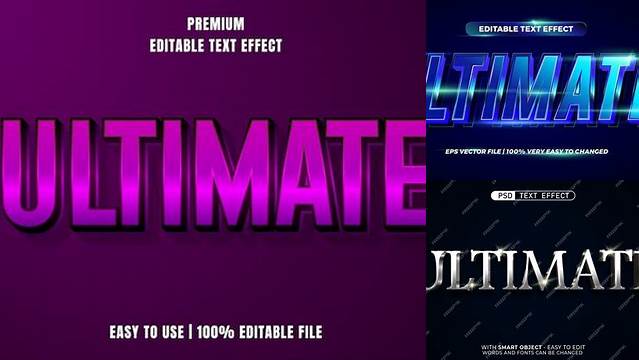
Font Editable Freepik: A Comprehensive Guide
Welcome, design enthusiasts! Are you ready to dive into the exciting world of font editable Freepik resources? This comprehensive guide is designed to be your ultimate companion, providing insights, tips, and tricks to help you master the art of utilizing and customizing font editable files from Freepik. We'll explore everything from the basics of identifying these valuable resources to advanced techniques for incorporating them seamlessly into your projects. So, buckle up, and let's embark on this creative journey together!
H2: Understanding Font Editable Files on Freepik
Alright, guys, let's start with the fundamentals. What exactly are font editable files on Freepik? Essentially, they are design templates or resources that include text elements that you can modify using design software like Adobe Illustrator or similar programs. This means you're not just getting a static image; you're getting a file where you can change the text, font, size, color, and more! This opens up a world of possibilities for personalization and adaptation. When you download a file from Freepik, pay close attention to the file format. Look for files like .ai (Adobe Illustrator), .psd (Adobe Photoshop), or sometimes even .eps (Encapsulated PostScript). These are your key indicators of an editable file. These formats allow you to access the layers, making text elements independently changeable. It is important to know the type of license associated with the file. Freepik usually offers different licenses, including a free license and a premium license. Each license has its own rules regarding usage, such as attribution requirements, commercial use limitations, or the need for a premium subscription. Make sure you understand the licensing terms to avoid any legal issues. Always check the fine print! This is a crucial first step, as understanding the licensing agreement will dictate how you can use the files in your projects. This step often involves reading through the license details provided by Freepik. These documents outline the permitted and restricted uses of the design assets. This includes how you can use the files in your commercial projects, personal projects, or whether you need to provide attribution to the original creator.
H3: Identifying Font Editable Files on Freepik
Now, let's talk about how to spot these gems on Freepik. The platform offers a massive library, so knowing how to filter and find the exact files you need is essential. First, use specific keywords. When searching, start with terms like "editable flyer template," "customizable poster," or "vector text effect." Using the right keywords is like having a secret code to unlock the treasures of design. Combining keywords can also help refine your search. For example, if you're looking for a business card template, use terms like "editable business card template" or "professional business card design editable." Use Freepik's filters. Freepik provides filters that allow you to narrow down your search based on file type, license, and even color. The file type filter is particularly useful. This will help you to find files with editable text elements. Look for files in .ai or .psd format. These formats are specifically designed for vector-based designs and provide layers that allow easy text editing. Consider the design software you use. When you're selecting an editable file, make sure it is compatible with your preferred design software. For example, if you use Adobe Illustrator, you'll want to select files in .ai or .eps format. Compatibility with your software can save you time and headaches down the road.
H2: Customizing Text in Font Editable Templates
Alright, let's get down to the fun part: customizing the text! This is where your creativity truly shines when using font editable files. Start by selecting the text layers. These are typically organized in the layers panel of your design software. Each text element will be in its own layer. Once you've selected the text layer, you can double-click on the text or use the text tool to edit it. Replace the placeholder text with your own content. Whether it's a name, slogan, or event details, this is where you bring your vision to life. Now comes the exciting part: font selection. Experiment with different fonts to find the perfect match for your message and design style. Consider the typeface's style. Every font has its own personality. Some fonts are bold and modern, while others are elegant and traditional. Choose a font that complements the overall design and reflects the tone of your message. Don't be afraid to adjust the font size to ensure readability and visual appeal. Make sure it fits the layout. If you're aiming for a classic look, think about fonts such as Times New Roman or Garamond. For a modern vibe, opt for sans-serif fonts. You can also change the font's color. If you're using a dark background, use white. If using a light background, use a dark color. These small changes can have a massive impact on the design. These techniques can help you change the text.
H3: Font Selection and Pairing for Editable Designs
Choosing and pairing fonts for your font editable designs is a key skill. The right font combination can elevate your project from good to amazing, while the wrong ones can make your design feel cluttered and unprofessional. Start by understanding font categories. There are several categories to choose from. Each one has its own character. Serif fonts have small strokes at the end of letters, offering a classic and elegant look. Sans-serif fonts lack these strokes and are generally more modern. Script fonts mimic handwriting, and display fonts are bold and attention-grabbing. Choose a primary font and a secondary font. The primary font is typically used for headlines and important text, while the secondary font is used for body text and supporting information. Try to choose fonts that complement each other. Consider the visual balance between your fonts. Experiment with contrasting fonts to make it visually interesting. Avoid using too many different fonts. It can overwhelm the viewer. A good rule of thumb is to stick to two or three fonts maximum. Ensure readability. No matter how beautiful a font is, it's useless if it can't be read. Pay attention to the kerning, leading, and tracking. Kerning refers to the space between individual letters, leading is the space between lines of text, and tracking is the overall spacing of a block of text.
H2: Modifying Colors and Graphics in Editable Templates
Beyond text, customizing colors and graphics is another way to make font editable Freepik templates truly your own. First, learn to navigate the layers panel. This is where all the design elements are organized. Look for layers related to background colors, graphic elements, and text. Once you have located the color layer, select it and change the color. Experiment with colors that match your brand identity or project theme. Using the eyedropper tool can help you match a color. When modifying graphics, look for vector graphics. This is because they are scalable and can be modified without losing quality. Experiment with the scale and position of graphic elements. To change the color of the graphic, select the object and change the color in the color palette. This may involve selecting the object and using the color picker tool. Play with the color combination in your design. To make your design interesting, you can try using a color palette. The color palette can help you choose colors that complement each other. This can save you time and effort.
H3: Replacing Images and Illustrations in Editable Designs
Sometimes you need to swap out the existing images and illustrations for your own. This is a common requirement when working with font editable templates. First, locate the image placeholders. These placeholders are usually marked with a layer and named clearly. This layer is usually a rectangle or a frame that contains the image. Ensure that the image you are using is of high quality. Otherwise, the image will appear pixelated and unclear. Replace the image by selecting the placeholder and importing your image into the design. When placing the image, be sure that the size is correct. This may require some adjustment and resizing. Use the transform tool to resize the image. You can also use the cropping tool to ensure that the image fits the design. Make sure the image complements the overall design. Adjust the image to match the style and theme of your project. Consider the composition and placement of the image. Make sure that it does not obscure any important text. By following these steps, you can replace images.
H3: Frequently Asked Questions about Freepik Fonts and Editable Files
Let's tackle some of the most frequently asked questions about Freepik fonts and editable files to give you a crystal-clear understanding. The most common question is: "Are Freepik files free to use?" The answer is complex. While many resources are free to download, there are limitations. The license terms dictate usage, and attribution is usually required for free files. Many people have questions about license compliance. It's important to understand the license terms before using any file. Always read the license agreement. You must understand the permitted and restricted uses. Another common question is: "How do I install fonts from Freepik?" The installation process may vary depending on your operating system. Fonts typically come with the download. You must install the fonts. Be sure to install the fonts correctly. Make sure you restart the design software after installing the fonts. If you're a beginner, consider: "What are the best design programs for editing these files?" Adobe Illustrator and Photoshop are the industry standards. If you're on a budget, explore Inkscape or Affinity Designer. By addressing these common questions, you can get a clear understanding of Freepik fonts.